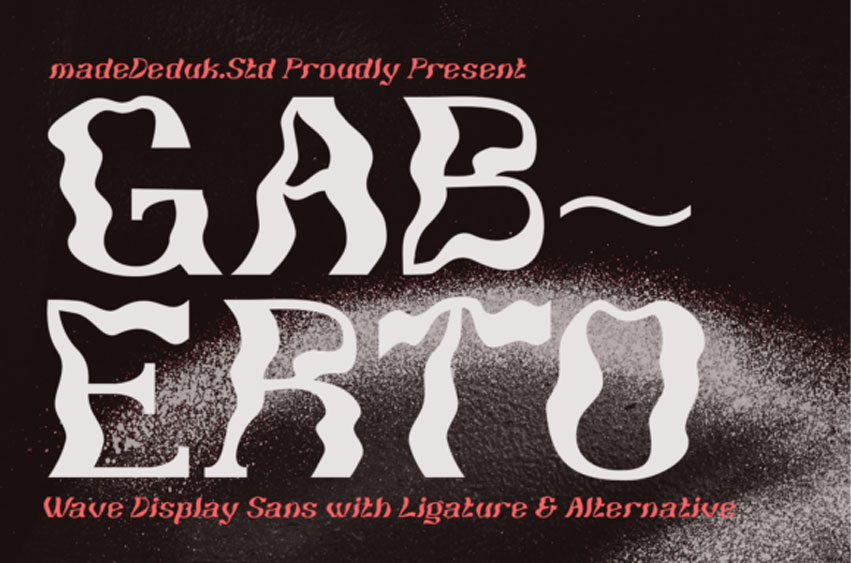
Gaberto Font is a bold display with a wave-inspired rhythm, sleek simplicity, and high-contrast details that make it stand out in both modern and classic settings. Its clean lines and stylish curves are perfectly suited for high-end fashion, cultural projects, and contemporary branding.
Versatile yet distinctive, Gaberto shines across a wide range of applications—from product packaging, posters, and invitations to logos, labels, quotes, and editorials. Whether you’re designing for digital platforms or printed materials, this typeface delivers a refined balance of elegance and impact.
Designed for creatives who want to explore and combine sophistication with modern minimalism, Gaberto is the perfect choice to elevate your projects with effortless style.